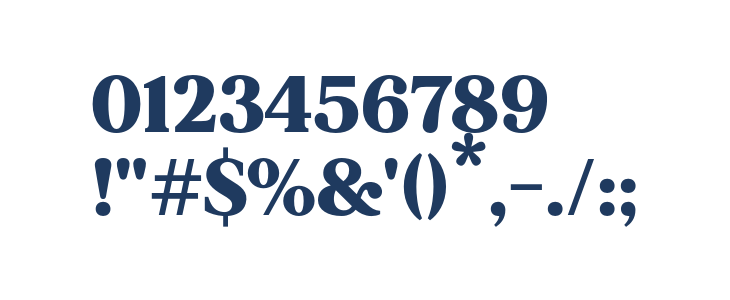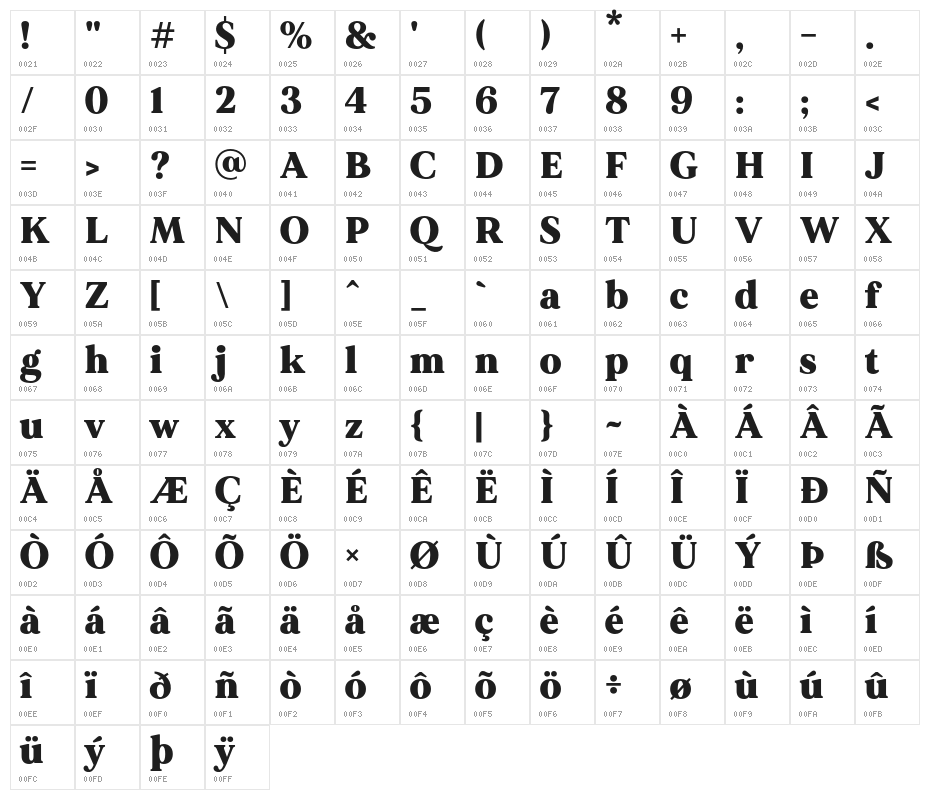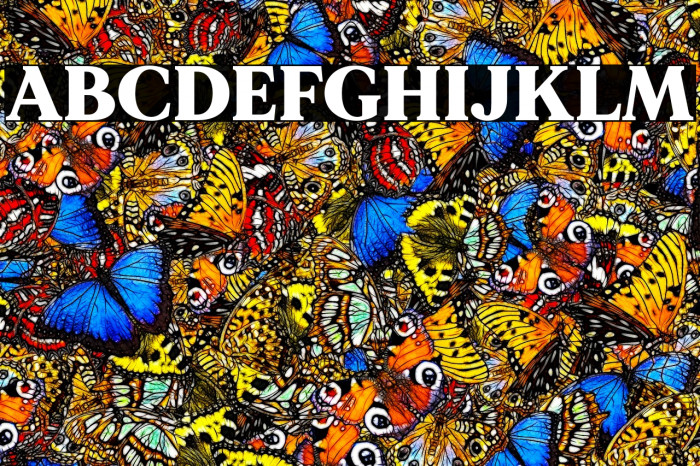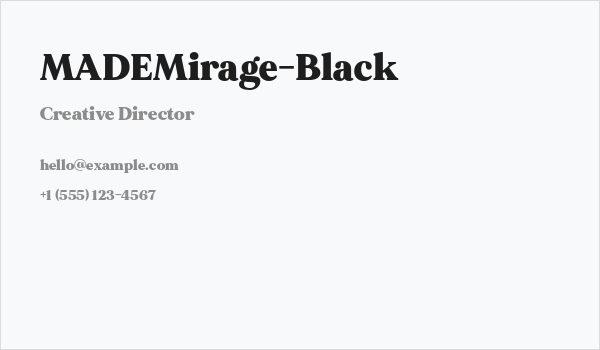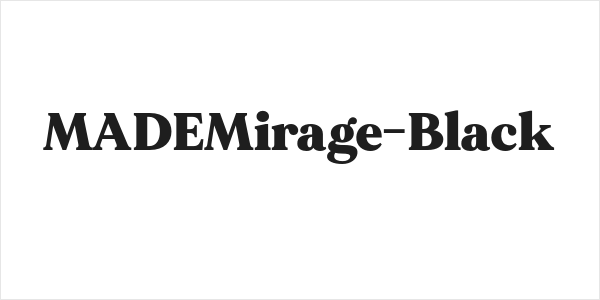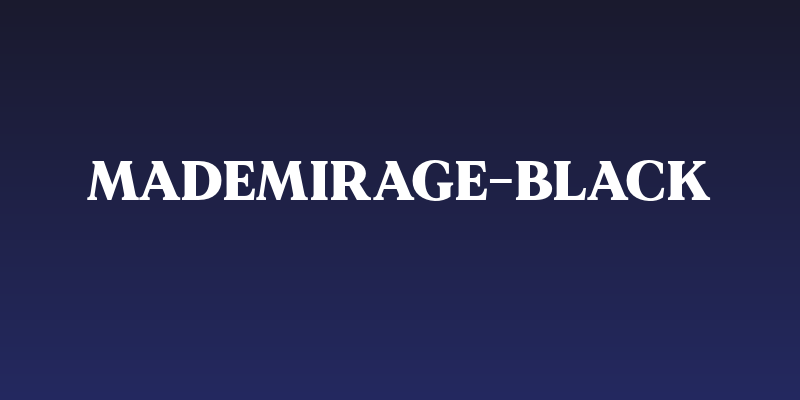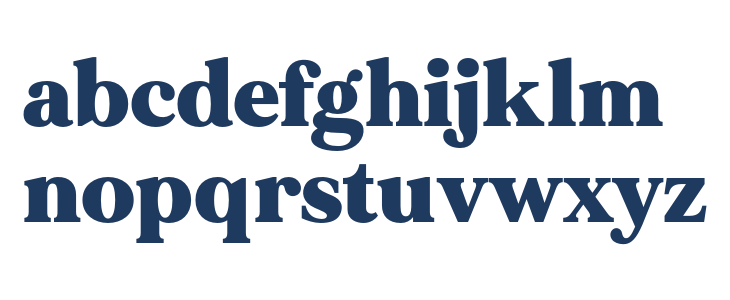
MADEMirage-Black Font
MADEMirage-Black Description
This font features a bold and commanding presence with its thick, robust strokes and high contrast between thick and thin lines. The serif design adds a touch of elegance and tradition, making it suitable for formal and impactful text. The uppercase letters are particularly striking, with their strong vertical lines and pronounced serifs. The lowercase letters maintain a consistent style, ensuring readability while retaining the font's bold character. The numerals are equally bold, ensuring they stand out in any context. Special characters are well-integrated, maintaining the overall aesthetic of the font.
| Proposed Projects | Ideal for headlines, branding, posters, and any project requiring a strong, elegant serif font. |